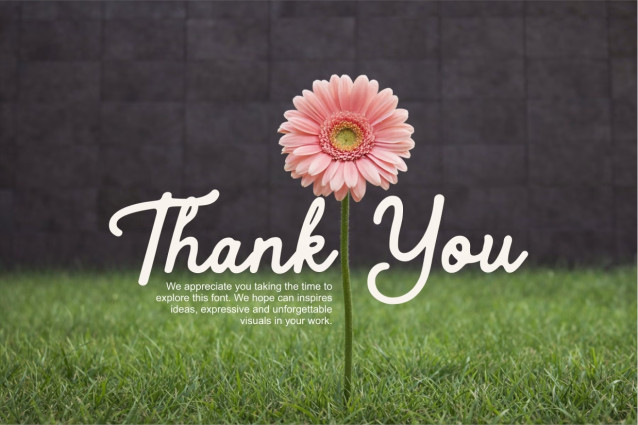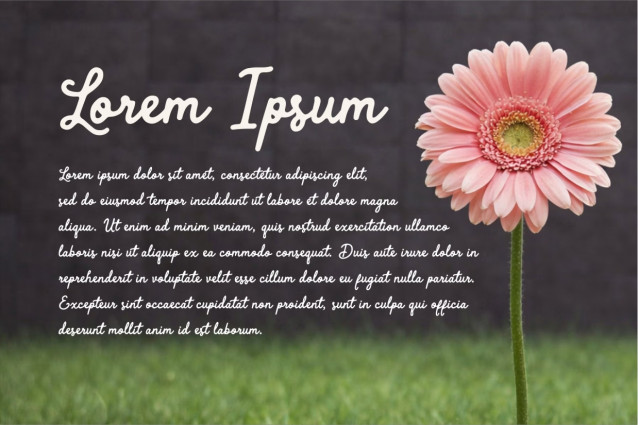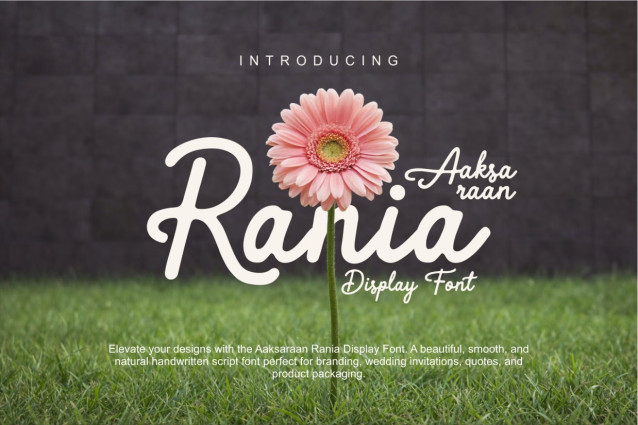
Aaksaraan Rania Font
Discover the charm of Aaksaraan Rania, a beautifully crafted handwritten display font designed to bring a touch of natural elegance and whimsy to your creative projects, this typeface features a smooth, flowing script style that seamlessly blends playful loops with a graceful, feminine aesthetic.
Whether you are designing a brand identity inspired by nature or crafting personalized greeting cards, Aaksaraan Rania delivers a friendly yet sophisticated typographic voice. Its bold yet fluid strokes ensure high legibility while maintaining the authentic, organic feel of modern calligraphy.